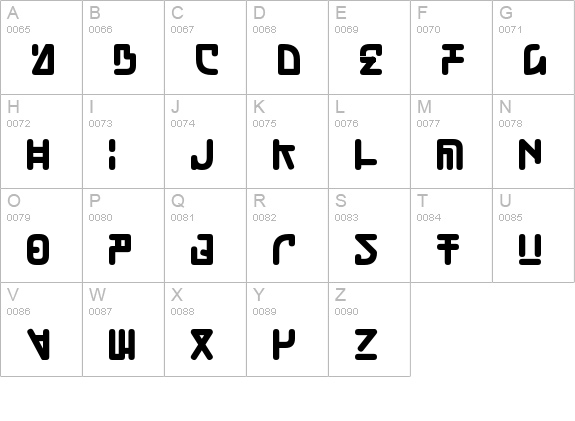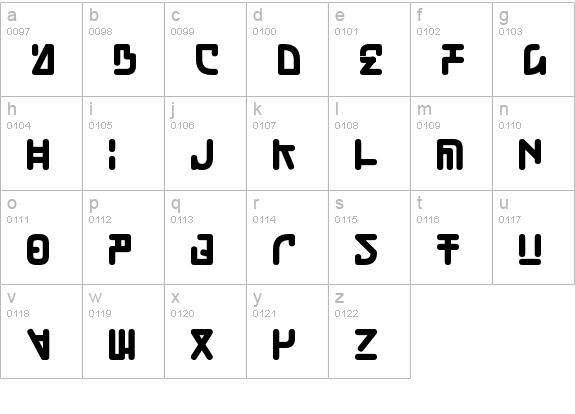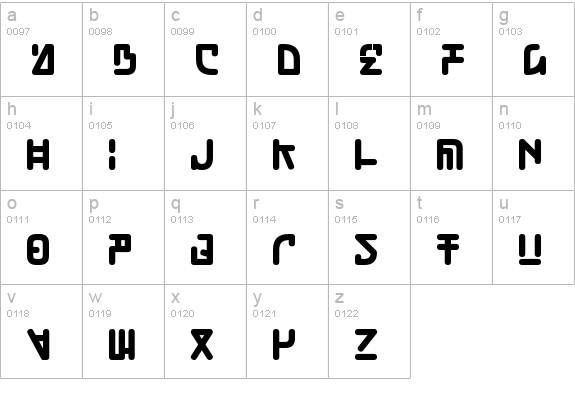
Pokopen Font Details
Introducing Pokopen font, a versatile and stylish typeface that will elevate your design projects to the next level. With its modern and sleek appearance, Pokopen is perfect for a wide range of applications including branding, advertising, packaging, and more. Its clean lines and unique character set make it a standout choice for any creative endeavor. The best part? Pokopen font is completely free to download at FontsMarket.com. This means you can access this high-quality font without any cost, making it a valuable addition to your font library. Don't miss out on the opportunity to enhance your designs with the sophisticated elegance of Pokopen font. Download it today and start creating stunning visuals that leave a lasting impression.